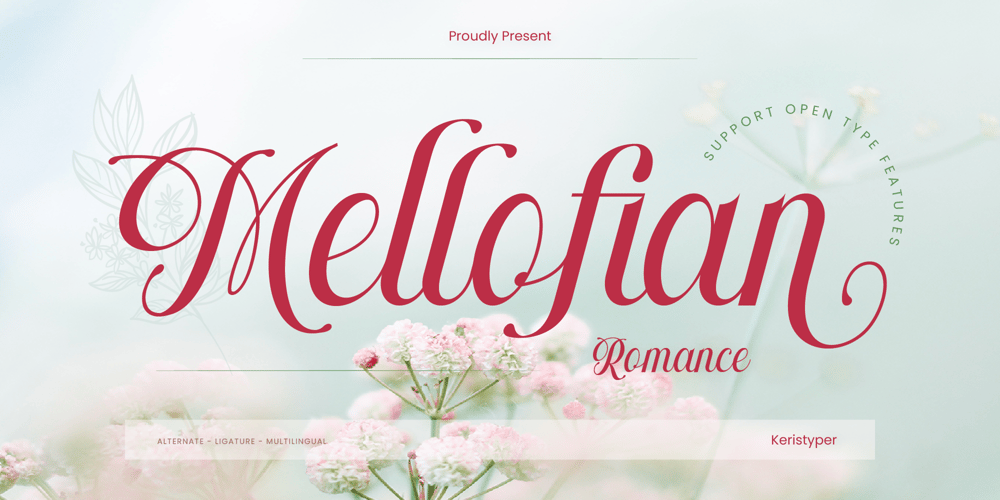
Mellofian
Mellofian font
Mellofian Font Family was designed by Tezar Tantular and published by Keristyper Studio. Mellofian contains 1 styles and family package options. Proudly present Mellofian a romantic script font Inspired by drama and love story. This font is good for logo design, Social media, Movie Titles, Books Titles, short text even long text letters, and good for your secondary text font with the script, sans, or serif.Featured: Standard Uppercase & Lowercase Numeral & Punctuation Multilingual : ä ö ü Ä Ö Ü ß ¿ ¡ Alternate & Ligature PUA encoded We recommend programs that support the OpenType feature and the Glyphs panel such as Adobe applications or Corel Draw. so you can use all the variations of the glyphs.Hope you enjoy our fonts!